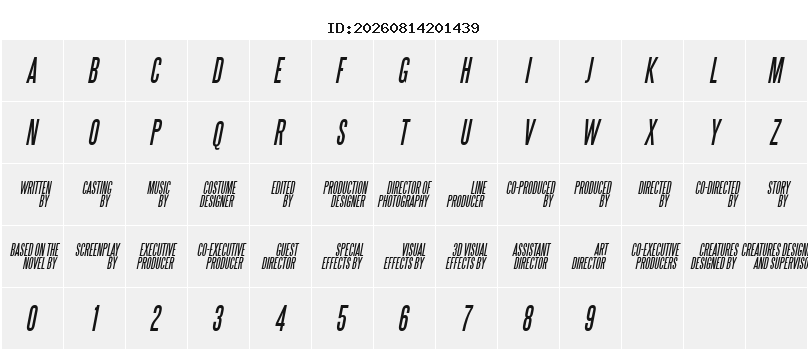
Steel Tongs Preview
• Font Name: Steel Tongs
• Font ID: TracerTong: Steel Tongs Italic: 2006
• Full Font Name: Steel Tongs Italic
• Version: April 2006
• PostScript Name: SteelTongs-Italic
• Character Count: 216
• Manufacturer: TracerTong
• Description: TracerTong (Modified Steelfish by Larabiefonts.com).
About Steel Tongs.ttf
Steel Tongs.ttf is a modern, elegant sans-serif font designed for ultimate readability and visual harmony. Perfect for branding, headlines, web design, and print materials.